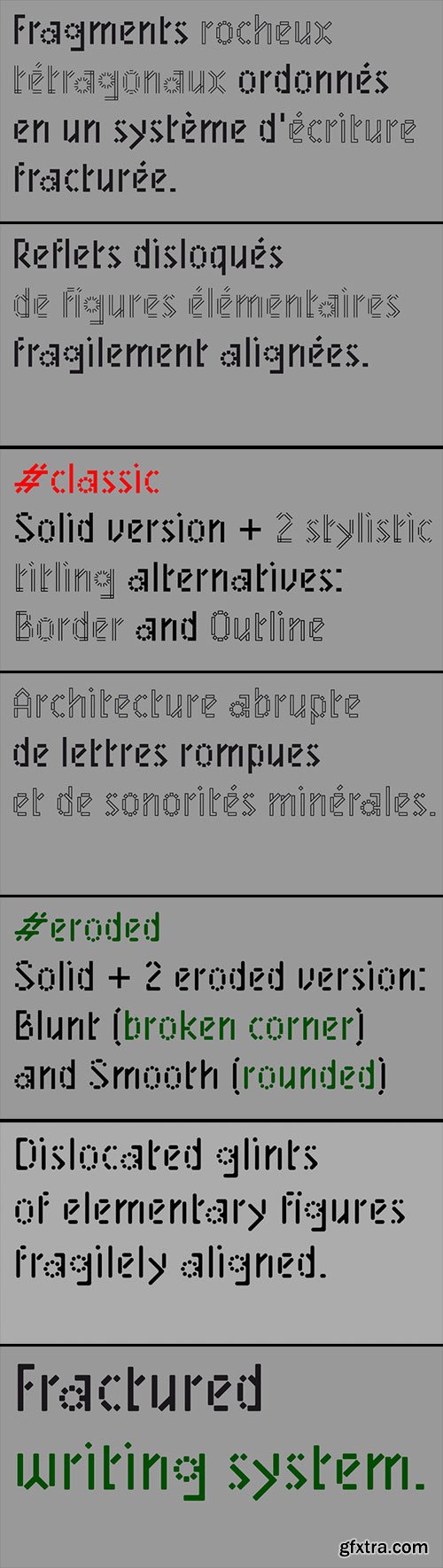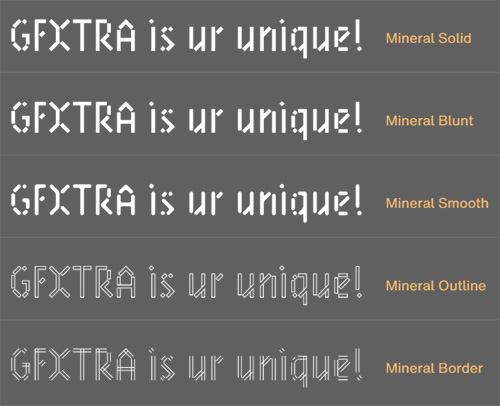
Mineral - Kapla Style Construction
- Glittering writing, fractured into multiple tetragonal splinters, rectangular modules slightly spaced, like quartz and pixels. A Kapla style construction, with stencil properties (except Border and Outline version ) designed by Benoît Bodhuin. Mineral Solid has 4 stylistic titling alternatives (Border, Outline, Blunt and Smooth).